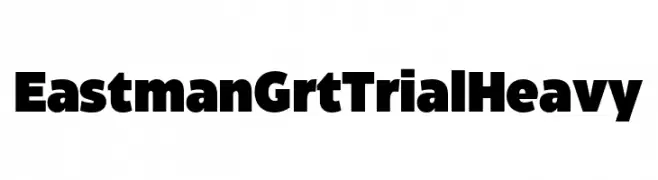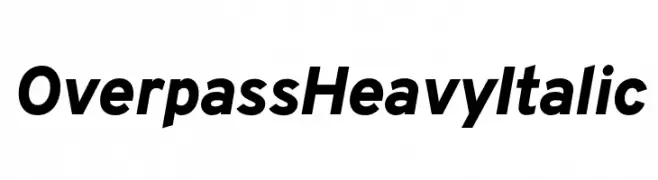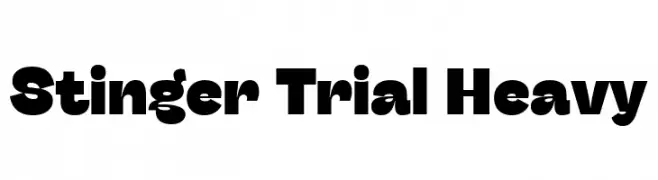
• Stinger Trial Heavy
A bold, geometric typeface with thick, uniform strokes and rounded edges.
• Eastman Alternate Trial Heavy
A bold, geometric font with consistent stroke widths and a modern style.
• Eastman Grt Trial Heavy
A bold, modern font with thick, uniform strokes ideal for headlines.
• Lato Heavy
A bold, modern sans-serif font with excellent readability and versatility.
• Overpass Heavy Italic
A bold, italic sans-serif font with a modern and dynamic style.
• Code Next-Trial Heavy
A bold, modern font with thick strokes and a strong presence.
• Heavy Copper Expanded Italic
A bold, angular, and italic font with a futuristic and aggressive style.
• Heavy Copper Gradient
A bold, futuristic font with a striped, geometric design.
• Heavy Copper Semi-Italic
A bold, angular, semi-italic font with a dynamic and aggressive style.
• Heavy Copper 3D
A bold, geometric font with a 3D effect and sharp angles.